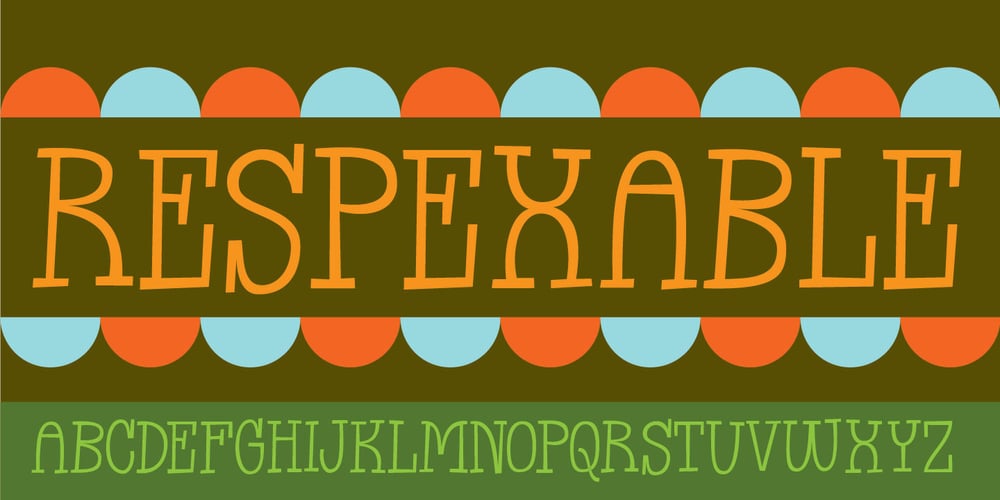
Respexable Font Family was designed by Jakob Fischer and published by PizzaDude.dk. Respexable contains 1 styles and family package options. Going retro with Respexable – an all caps font with a funky mixture of grafitti and my own retro handwriting!